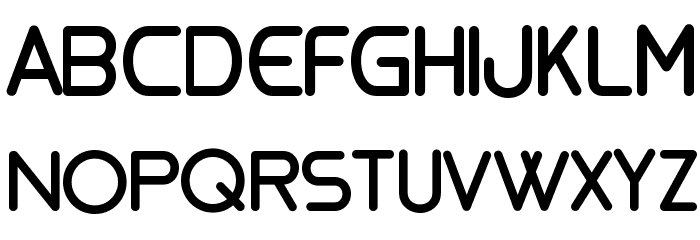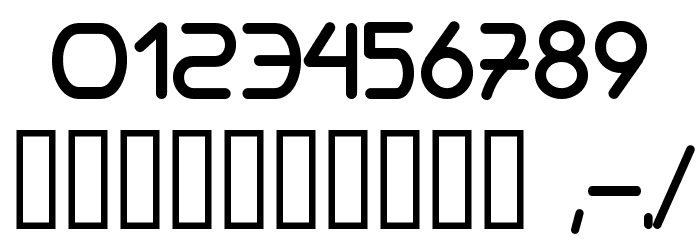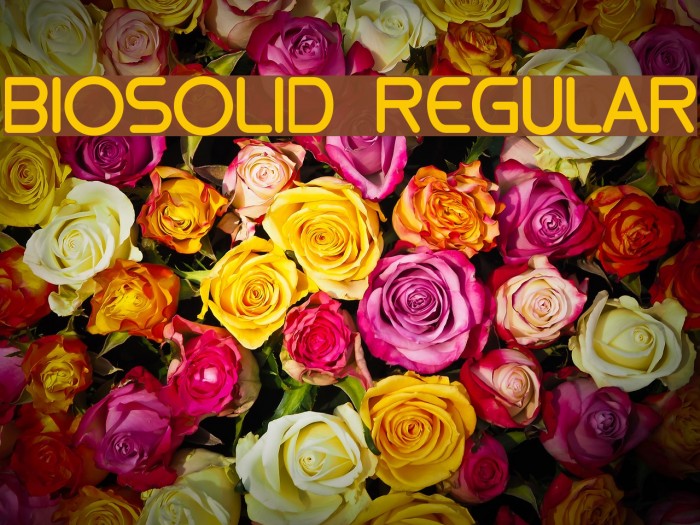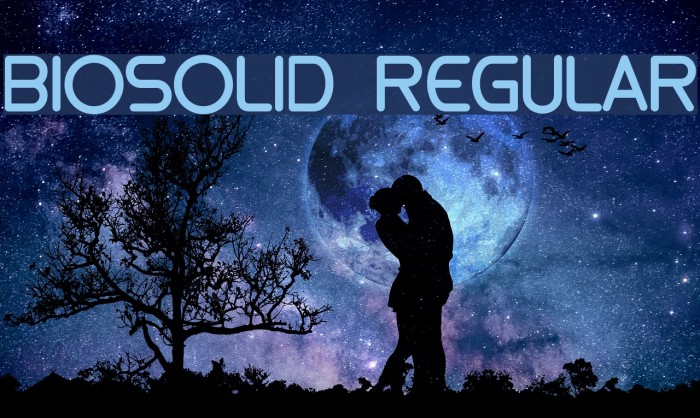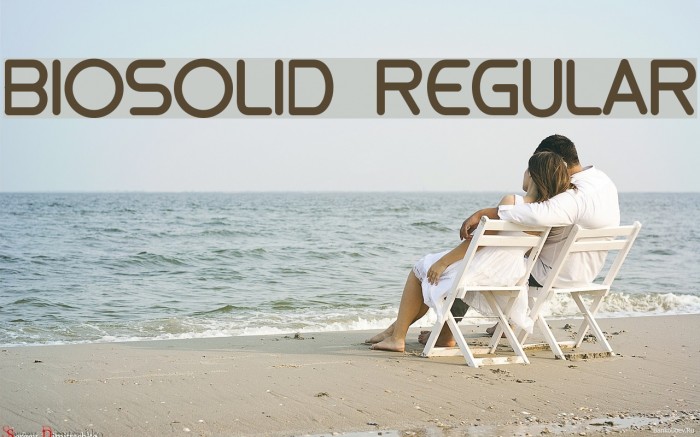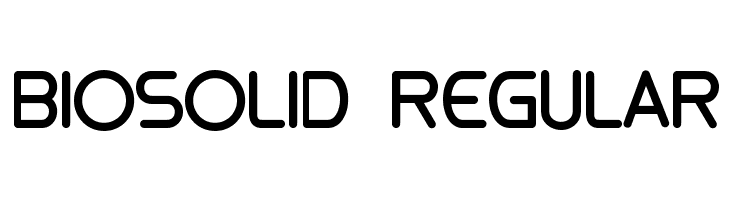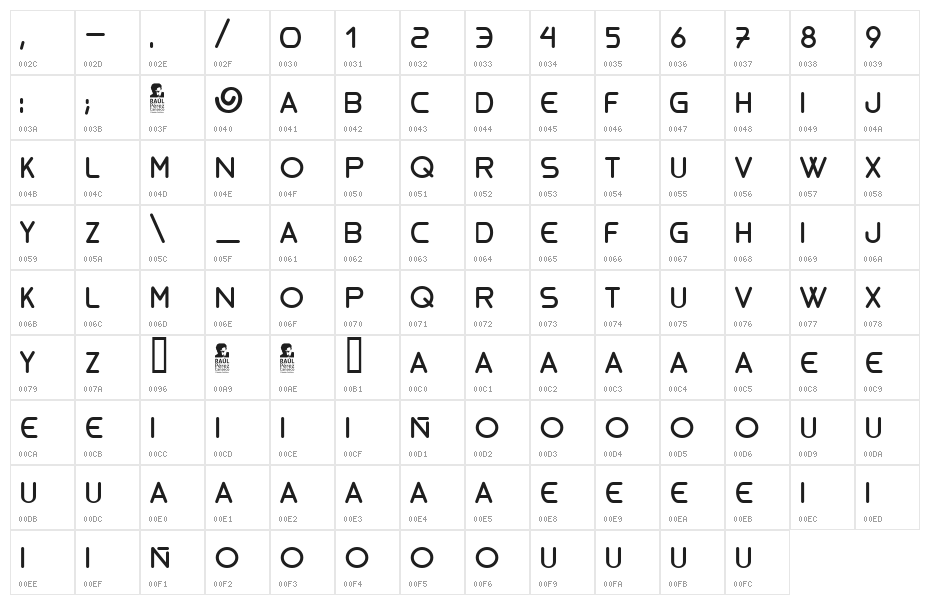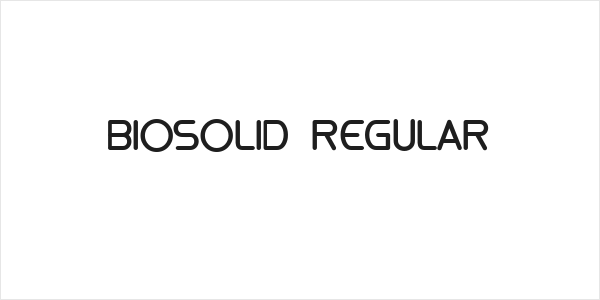
biosolid Regular Font
This font features a modern, geometric style with rounded edges, giving it a sleek and contemporary appearance. The characters are uniform in width, creating a balanced and harmonious look. The uppercase and lowercase letters maintain a consistent height, contributing to its clean and organized aesthetic. The numerals are distinct and easily readable, while the special characters complement the overall design. Its simplicity and clarity make it versatile for various design applications.
A modern, geometric font with rounded edges and uniform width.
- Proposed Projects: Ideal for tech branding, modern web design, and minimalist posters.
- Use Case: Headlines, Logos, Web design